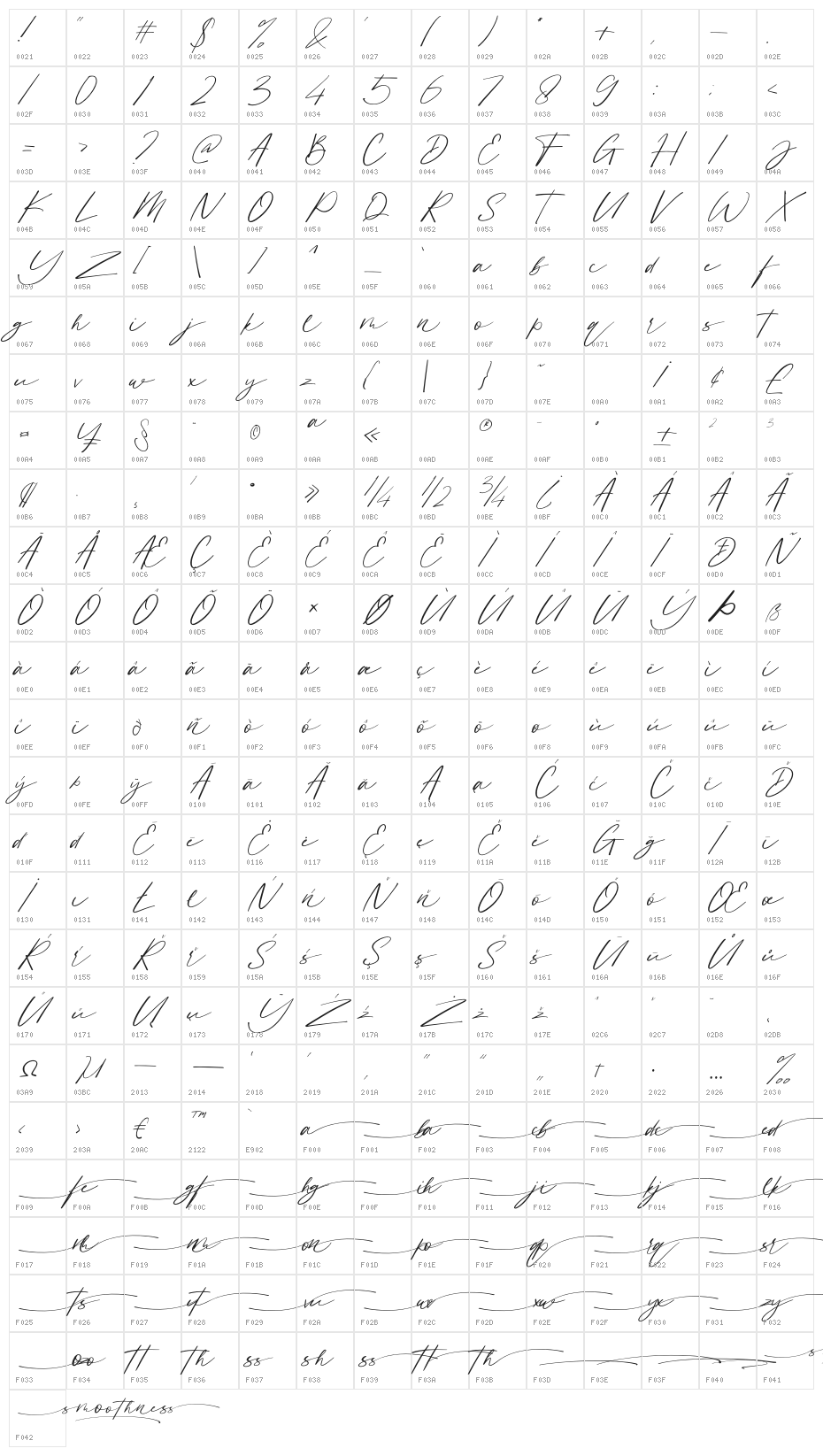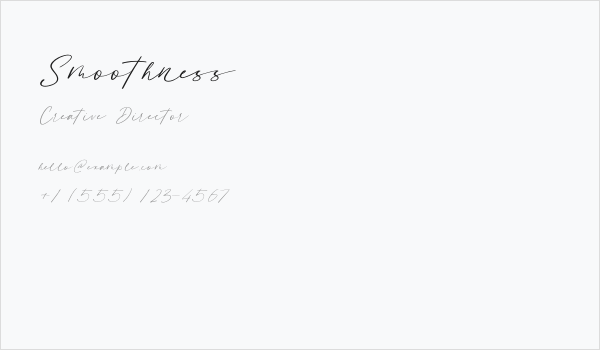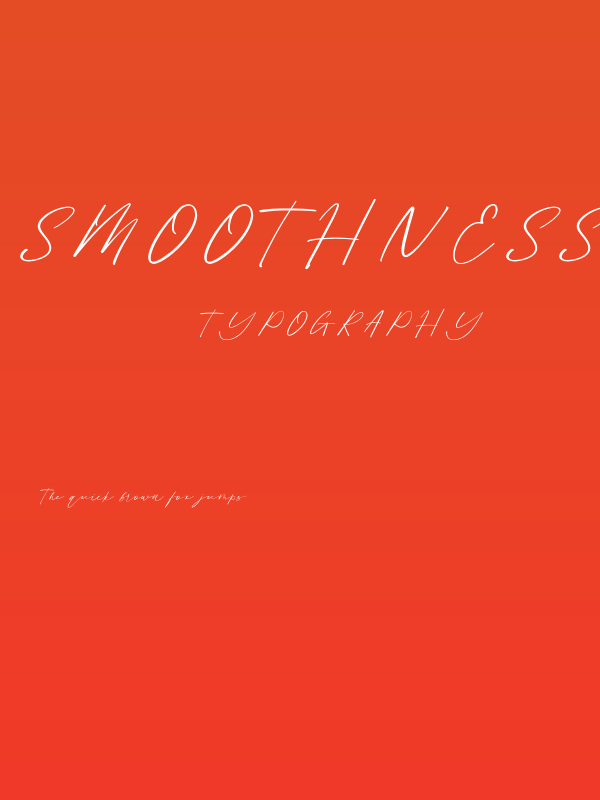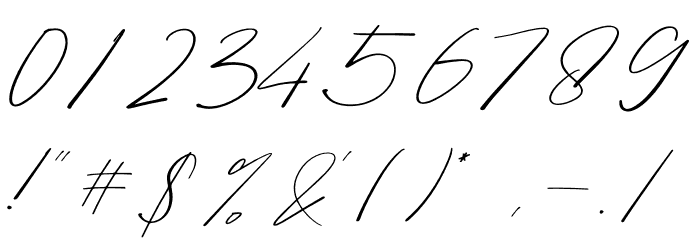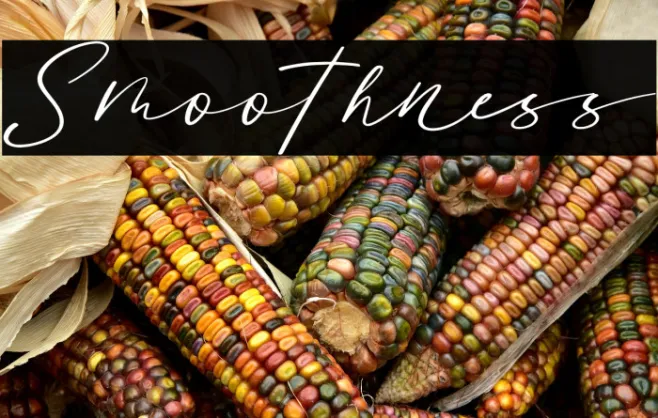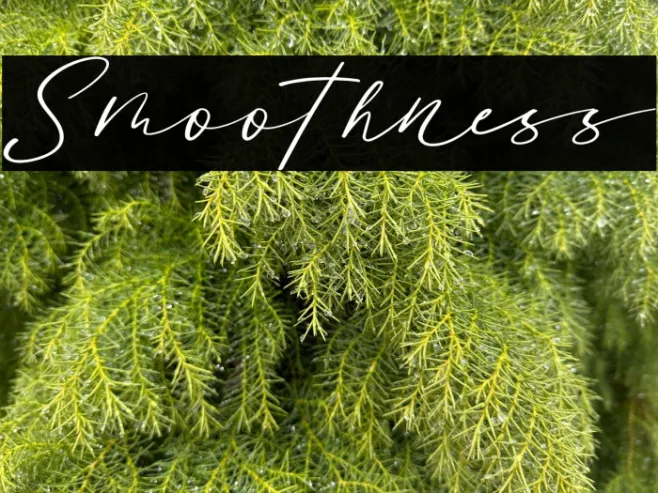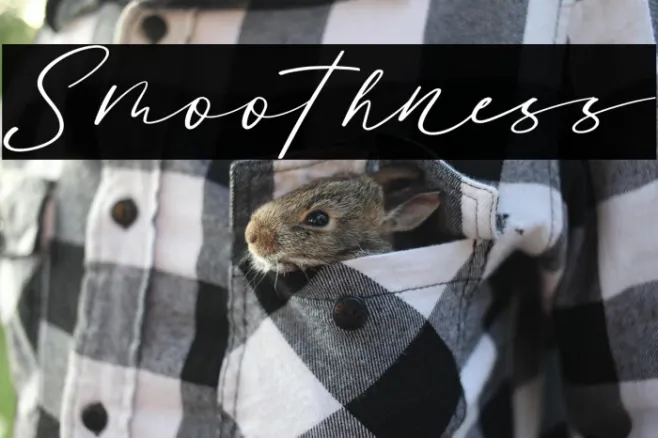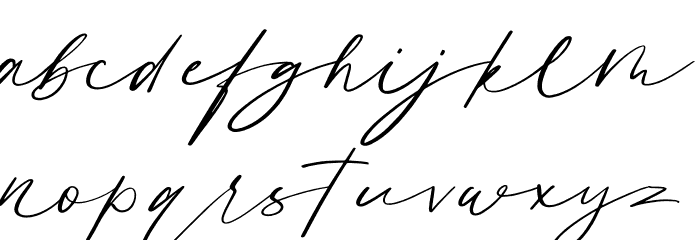
Smoothness Font
Smoothness Description
This font exudes a sense of elegance and fluidity, characterized by its smooth, flowing script style. The letters are connected in a cursive manner, giving it a handwritten appearance that is both sophisticated and approachable. The strokes are thin and delicate, with a consistent flow that enhances its readability. The uppercase letters maintain a graceful form, while the lowercase letters exhibit a charming, personal touch. The numerals and special characters are crafted with the same attention to detail, ensuring a cohesive look throughout. This font is perfect for projects that require a personal, elegant touch.